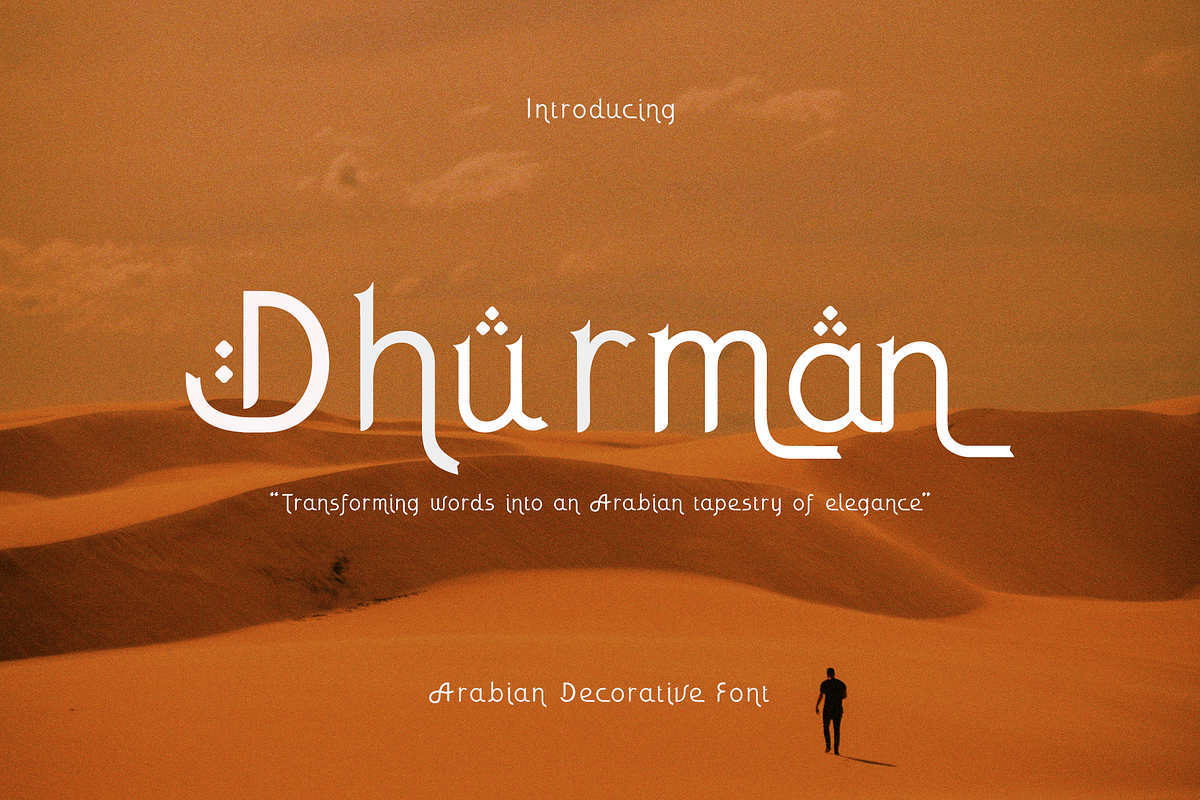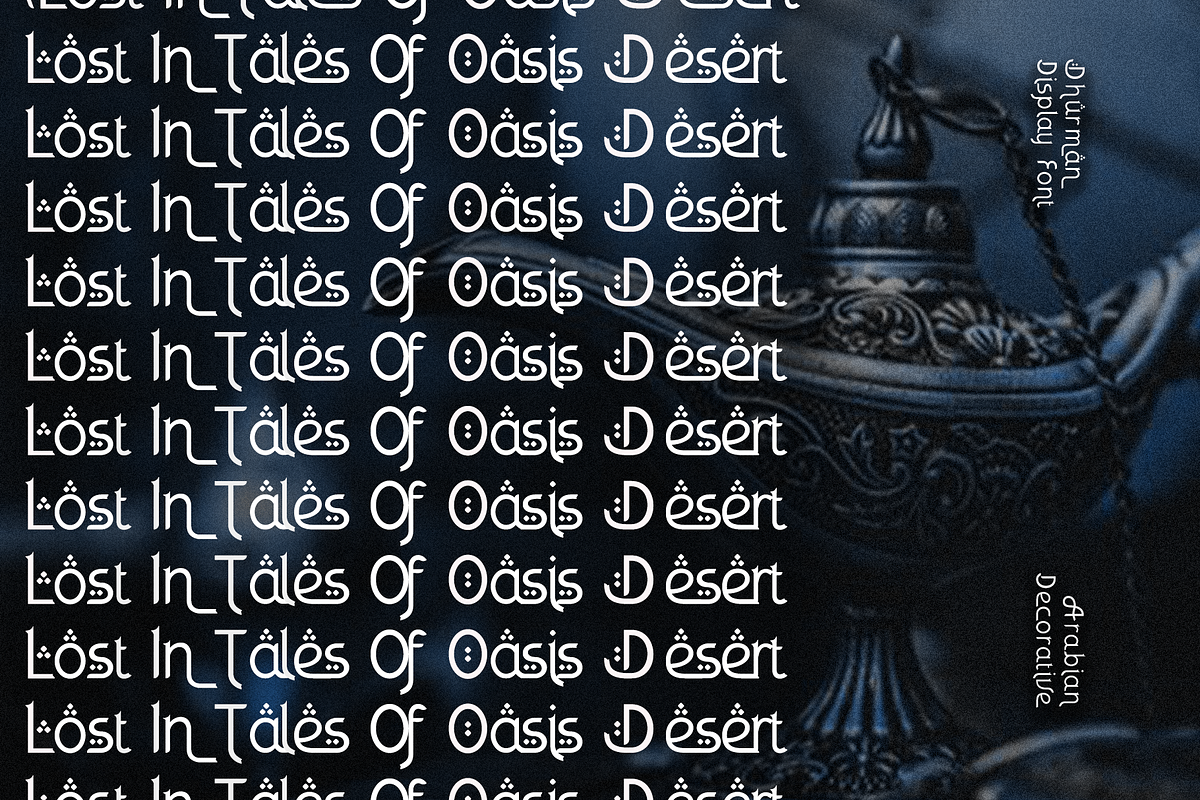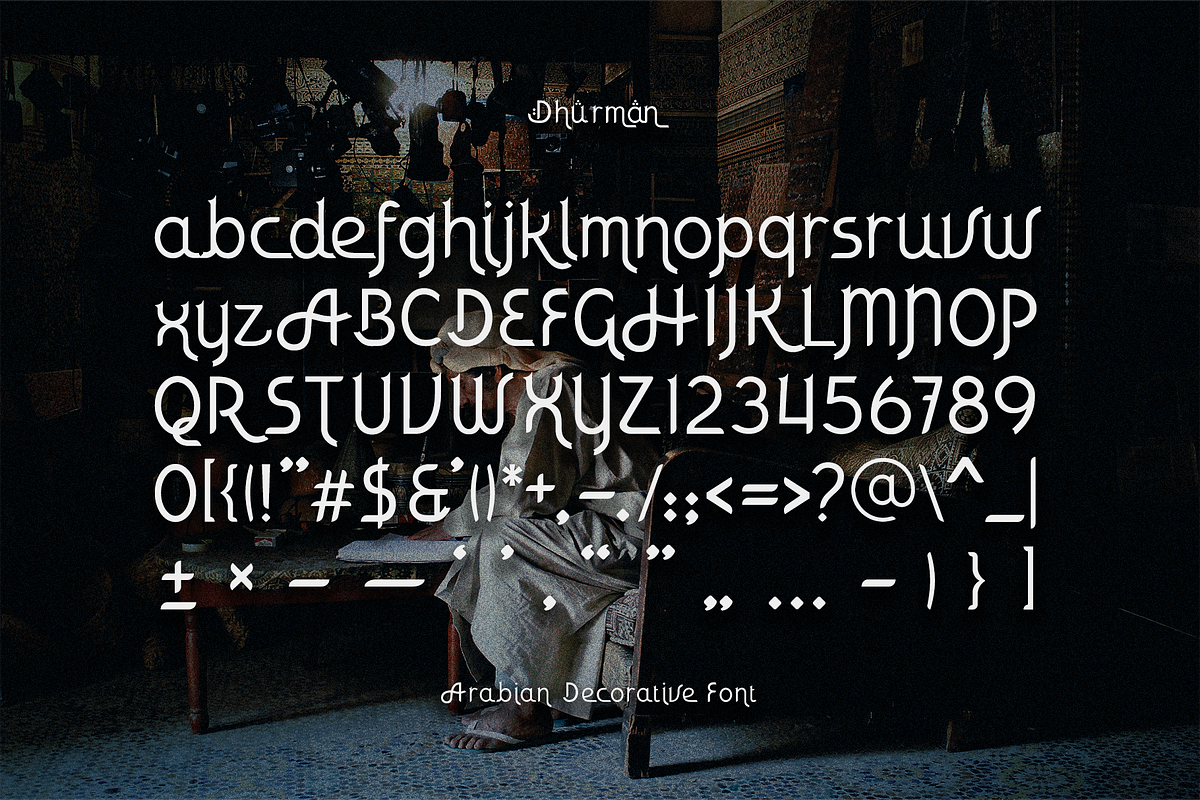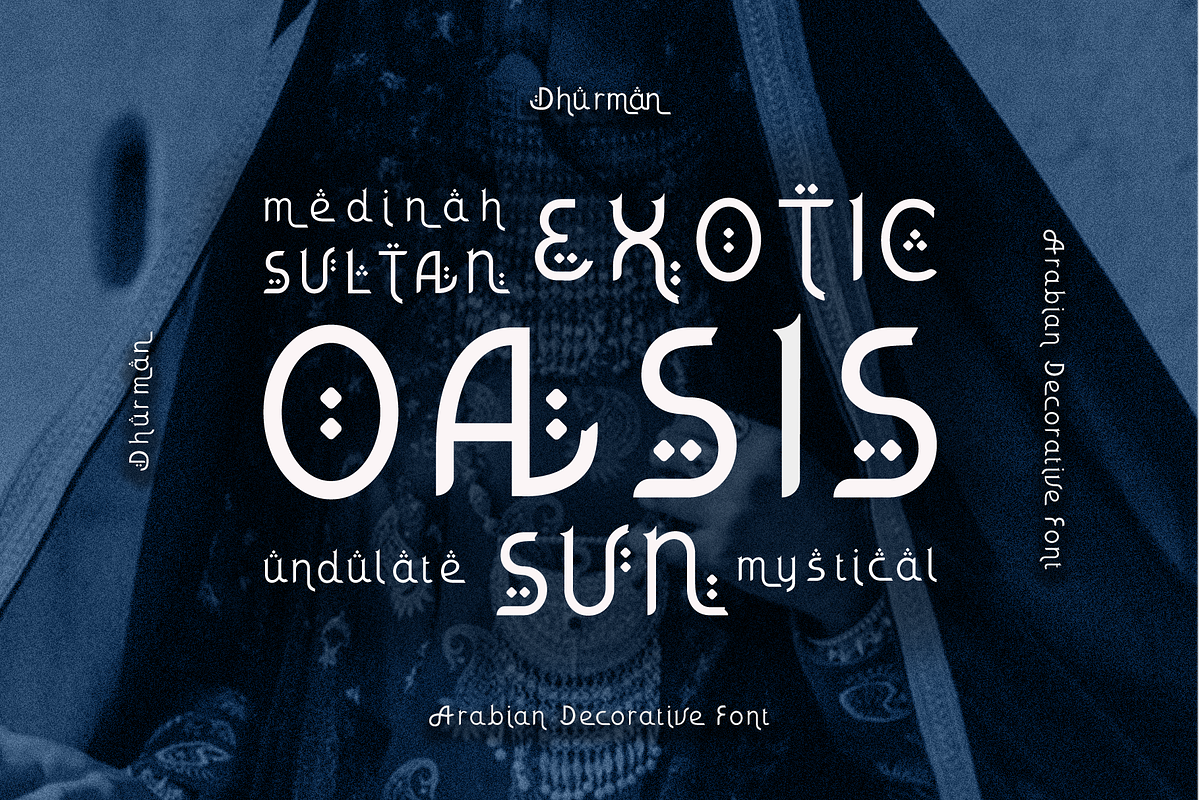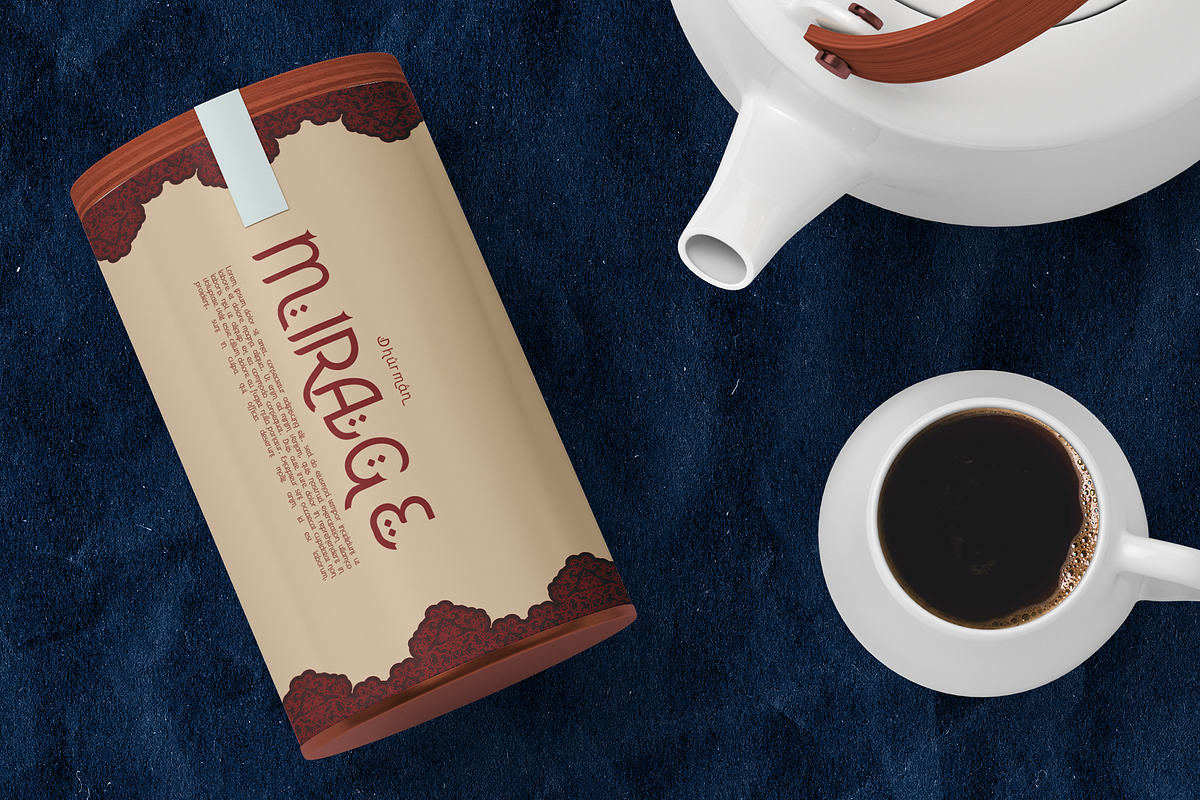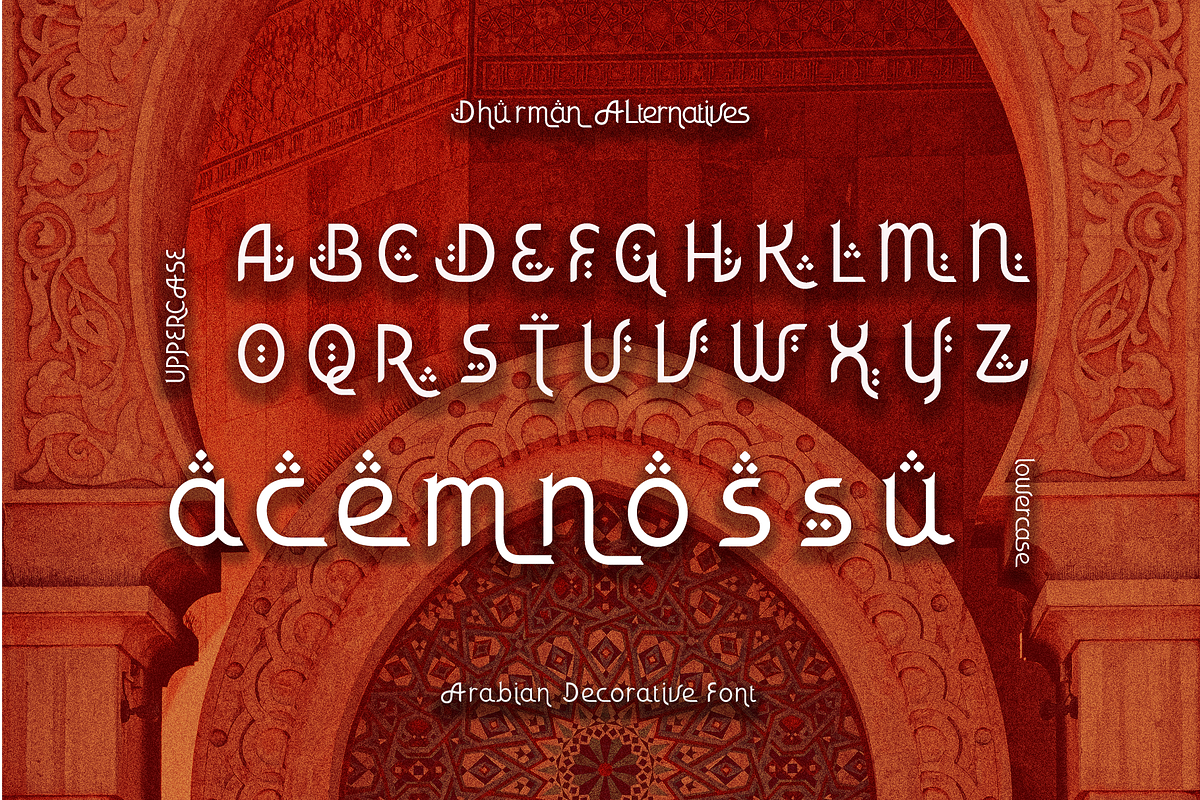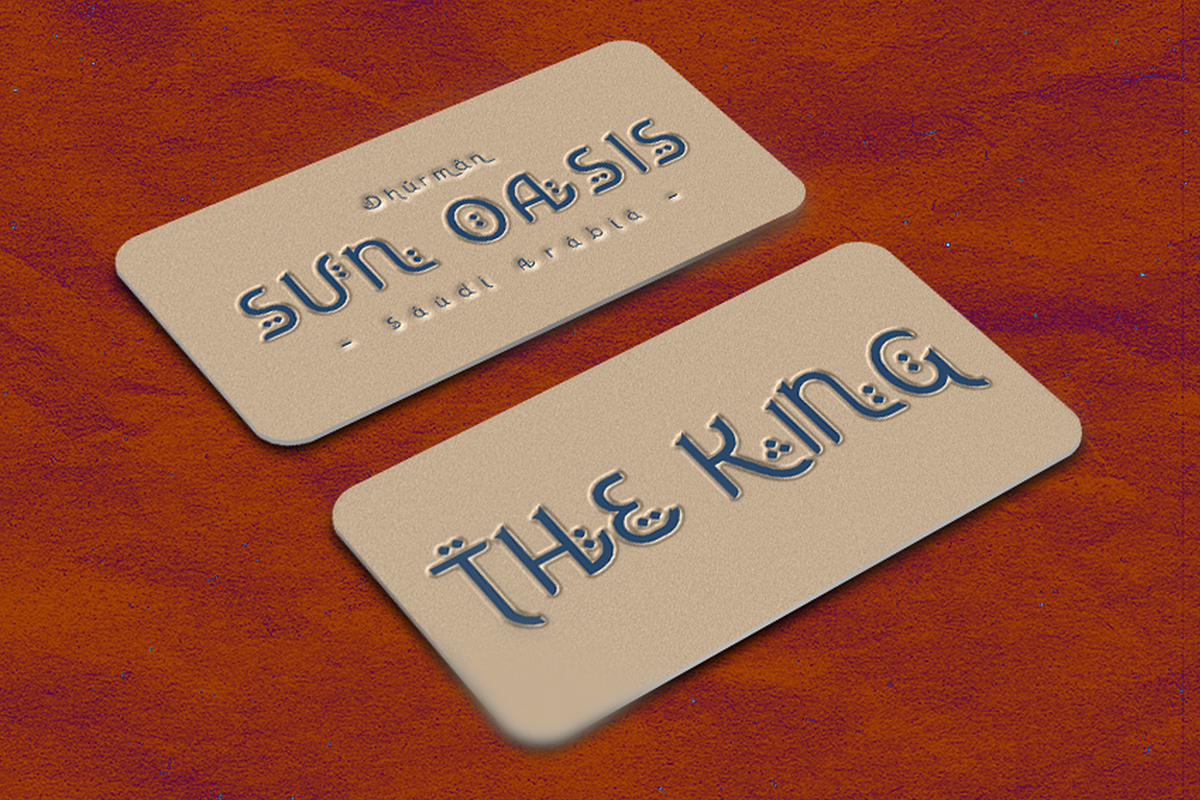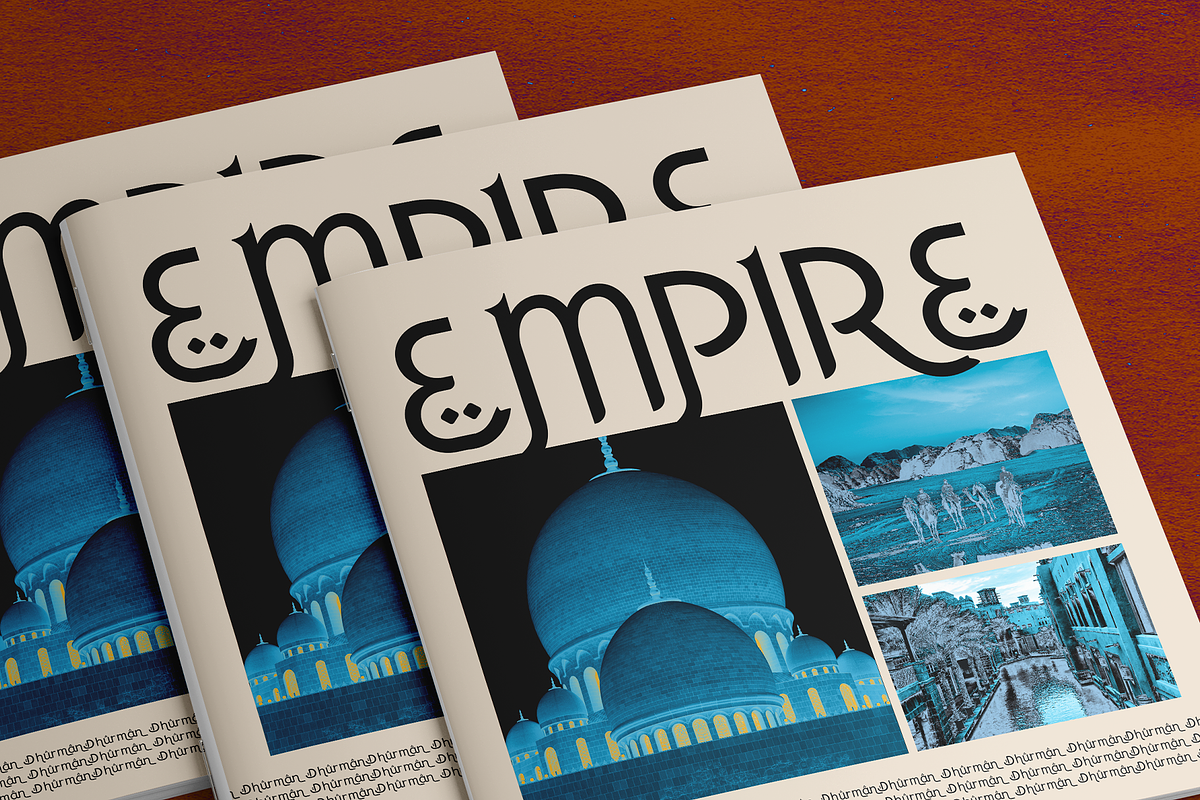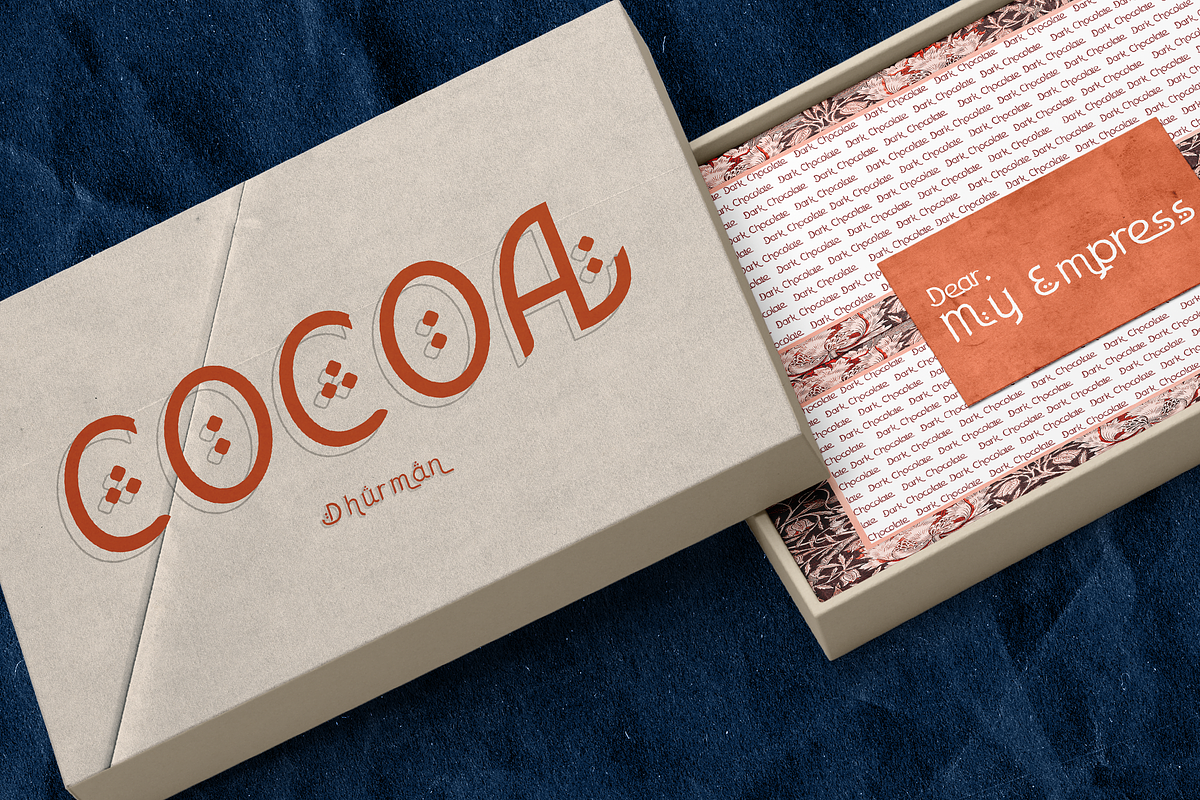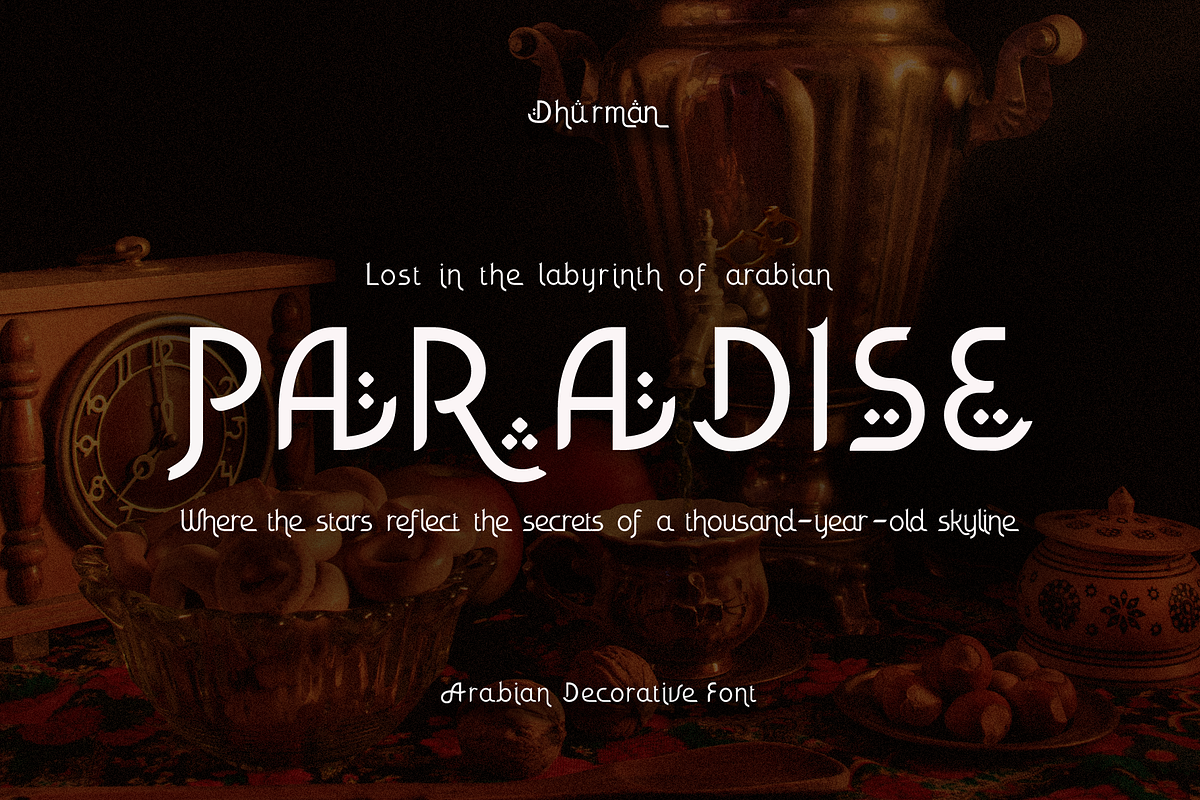
CF Dhurman - Arabic Decorative Serif
Dhurman is decorative and elegant, with a flowing, organic feel. The letters a have flourishes and other decorative elements. The font is reminiscent of traditional Arabic calligraphy but with a modern twist.